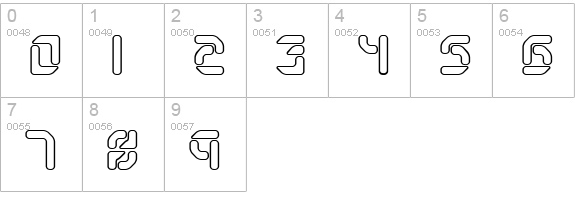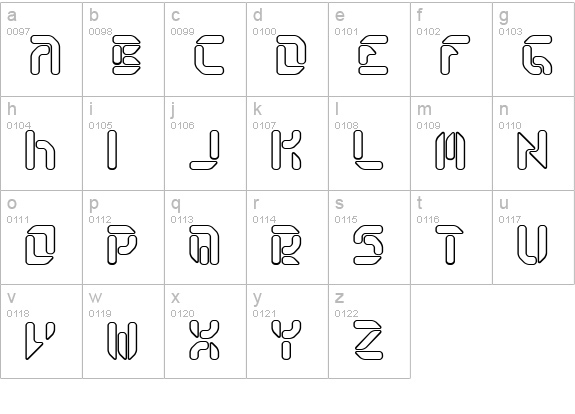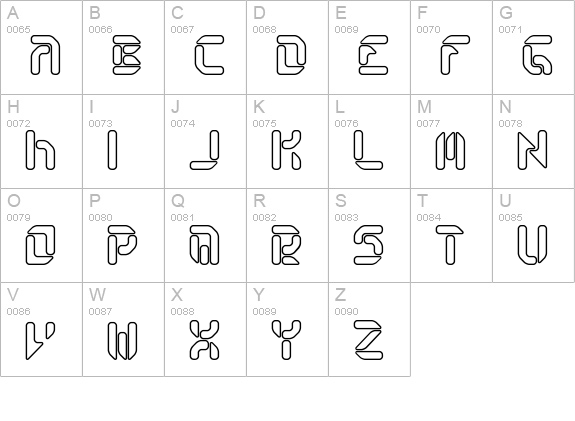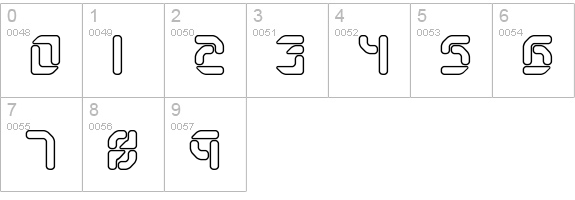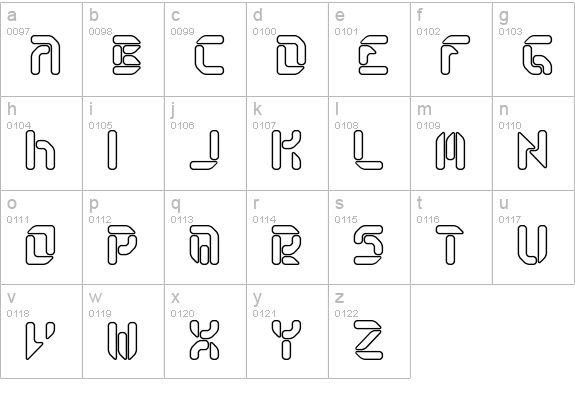
Collective RO BRK Font Details
Collective RO BRK is a modern and versatile typeface that exudes a sense of creativity and sophistication. With its unique blend of sharp edges and sleek curves, this font is perfect for a wide range of design projects, from branding to editorial layouts. The clean lines and balanced proportions of Collective RO BRK make it a highly legible choice for both print and digital applications. One of the best things about Collective RO BRK is that it is available for free download at FontsMarket.com. This means that you can easily access this stylish font and use it in your projects without any cost. Whether you're a professional designer looking for a new addition to your font library or a hobbyist experimenting with typography, Collective RO BRK is a fantastic choice that won't break the bank. Overall, Collective RO BRK offers a perfect combination of elegance and functionality, making it a must-have font for anyone looking to elevate their designs with a touch of contemporary flair. Download it for free today and see how this versatile typeface can enhance your creative work.